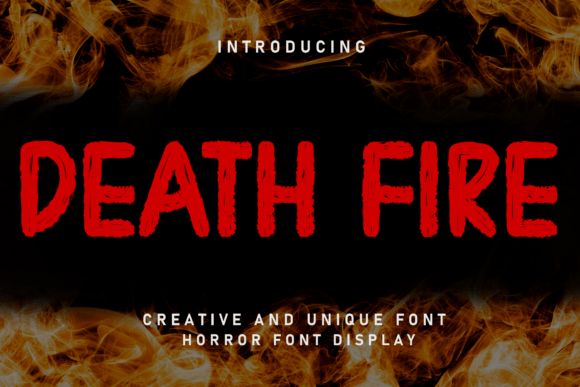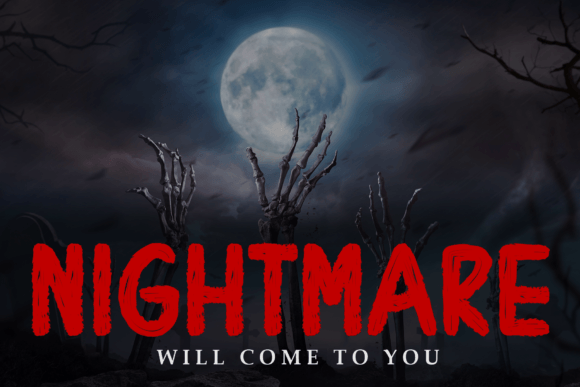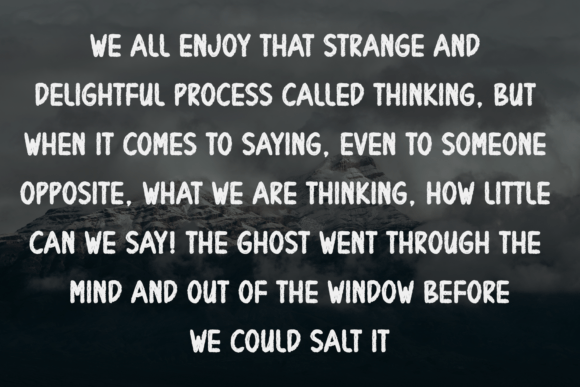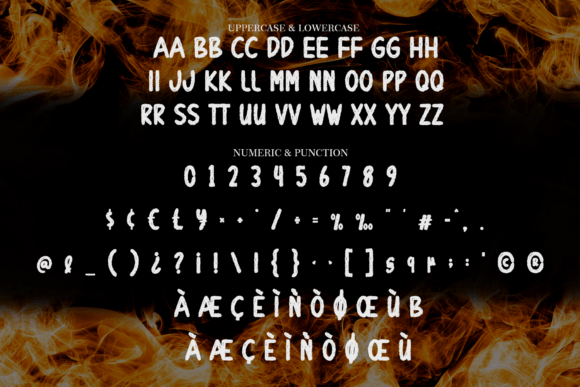
Unleash Your Inner Creativity with the Death Fire Font
Have you ever stared at a blank canvas, waiting for the perfect spark to ignite your next creative project? We’ve all been there – the frustration, the anticipation, the thrill of bringing a new idea to life. For designers, this moment is a constant companion, driving us to push the boundaries of what’s possible. And that’s where the Death Fire Font comes in – a game-changing display font designed to elevate your creative vision to new heights.
This masterfully crafted font is more than just a tool – it’s a partner in your creative journey. With its unique design, Death Fire Font has the power to transform your ideas into stunning visual experiences that capture attention and leave a lasting impression. Whether you’re working on a branding project, a graphic novel, or a social media campaign, this font is sure to bring your vision to life in a way that’s truly unforgettable.
Key Features of Death Fire Font
- Font Family: Death Fire Font is a unique, hand-drawn font family consisting of 7 styles, including a regular, bold, and italic version for each weight.
- Character Set: The font family includes a wide range of characters, including uppercase and lowercase letters, numbers, punctuation marks, and special characters, making it suitable for various design projects.
- Unique Characteristics: Death Fire Font features a distinctive, hand-drawn style with bold lines, rough textures, and fiery elements, giving it a unique and eye-catching appearance.
Death Fire Font Review
I recently had the chance to work with the “Death Fire Font” and I must say, it’s a unique and attention-grabbing font. ✨ The bold, fiery design is perfect for adding a touch of edginess to any project. I particularly like the way it looks when used for headings or titles – it really draws the reader’s attention.
Here are some things that work well with this font:
- ✨ Uniqueness: Death Fire Font is not your average font, and that’s what makes it so great. It’s a conversation starter and can help your project stand out.
- ✨ Versatility: Despite its bold design, Death Fire Font can be used in a variety of contexts, from action-packed video games to edgy websites.
- ✨ Readability: While the font may look intimidating at first glance, it’s actually quite readable, especially in larger sizes.
- ⚠️ Limited legibility in smaller sizes: While the font looks great in larger sizes, it can become difficult to read when used in smaller sizes.
- ⚠️ Limited character set: The font may not include all the characters you need, which can be a problem if you’re working on a project that requires a wide range of languages or special characters.
Overall, I think the Death Fire Font is a great choice for anyone looking to add some excitement to their project. Just be mindful of its limitations and use it judiciously.
Death Fire Font works well for creating bold, attention-grabbing headlines and titles.
Death Fire Font can be used to create custom typography and text effects in Photoshop and Illustrator.
Death Fire Font can be used to add a touch of boldness and style to your presentations and documents.
Death Fire Font is ideal for:
- Bold headlines and titles
- Creating attention-grabbing text effects
- Adding a touch of style to presentations and documents
Remember to use Death Fire Font sparingly, as it can be overwhelming if used excessively.